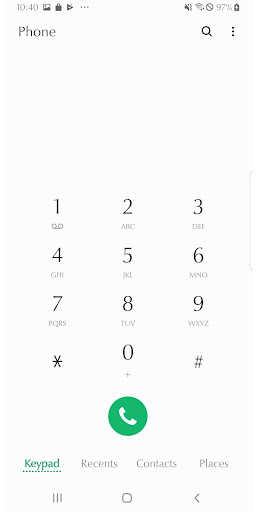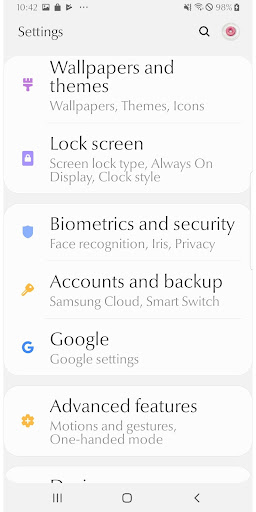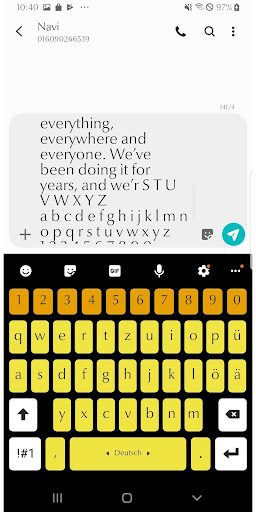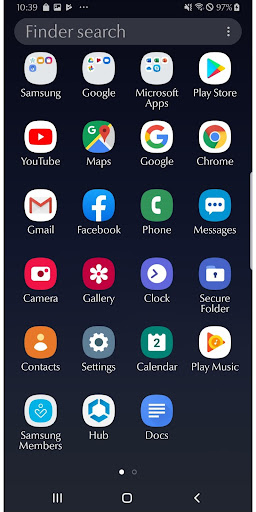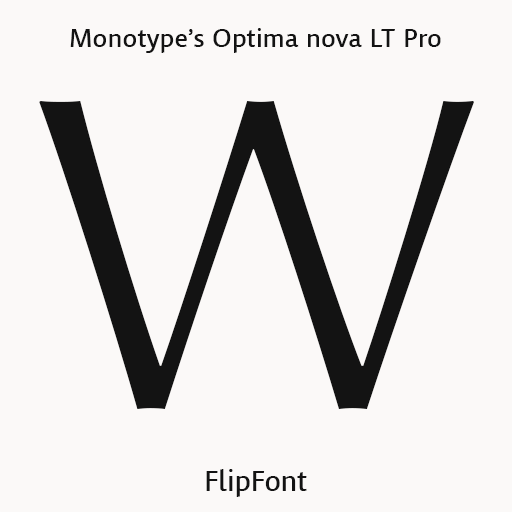
Optima™ was designed by Hermann Zapf and is his most successful typeface. In 1950, Zapf made his first sketches while visiting the Santa Croce church in Florence. He sketched letters from grave plates that had been cut about 1530, and as he had no other paper with him at the time, the sketches were done on two 1000 lire bank notes. These letters from the floor of the church inspired Optima, a typeface that is classically roman in proportion and character, but without serifs. The letterforms were designed in the proportions of the Golden Ratio. In 1952, after careful legibility testing, the first drawings were finished.
The type was cut by the famous punchcutter August Rosenberger at the D. Stempel AG type foundry in Frankfurt. Optima was produced in matrices for the Linotype typesetting machines and released in 1958. With the clear, simple elegance of its sans serif forms and the warmly human touches of its tapering stems, this family has proved popular around the world. In 2002, when it was finally possible to produce digital alphabets without technical limitations and compromises, and more than 50 years after the first sketches, an expansion and redesign of the Optima family was completed and released as Optima nova.
Hermann Zapf and Japanese type designer Akira Kobayashi collaborated on the project, which included re-working of the existing weights and the addition of several new weights for a total of 40 fonts. Small caps, Old style Figures, light, heavy, and condensed fonts have been added. The original Optima was never manufactured with a real italic, only an oblique version of the roman. Optima™ nova has a complete range of beautifully designed real italics; the new italic forms of the e, f and g are especially notable.